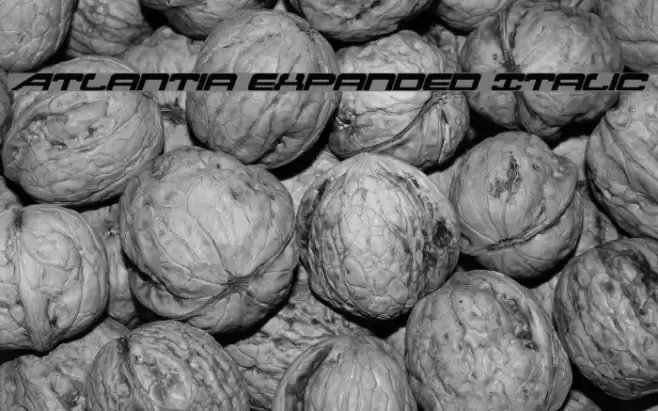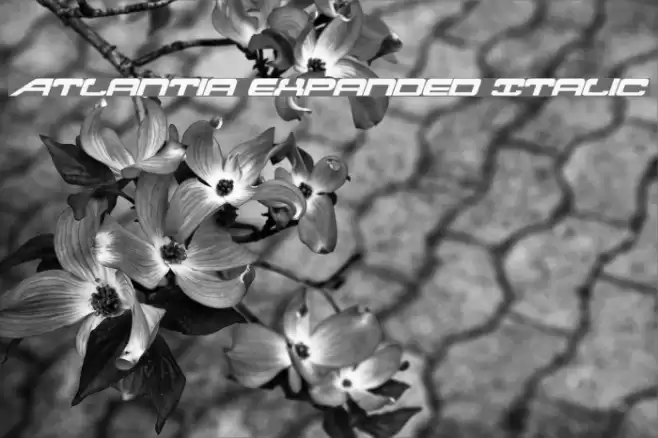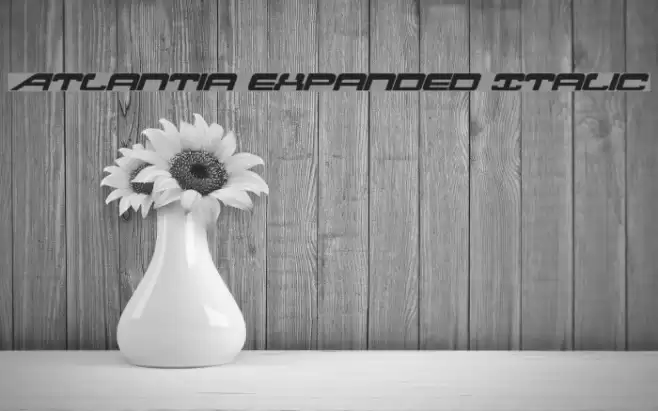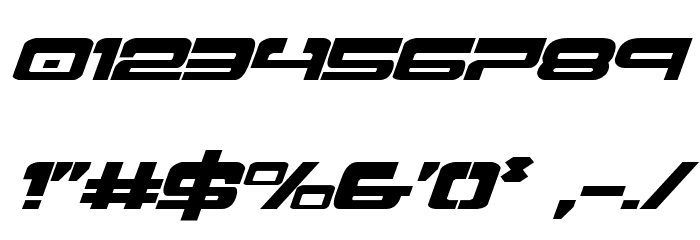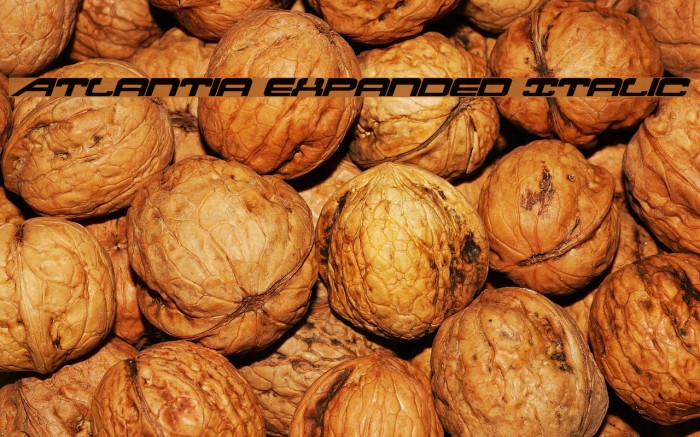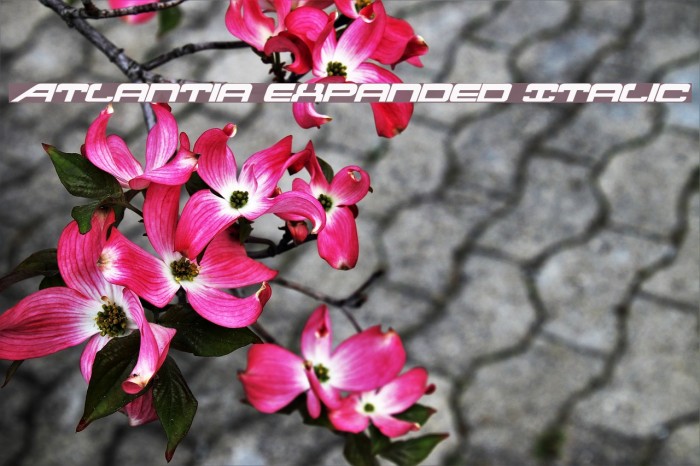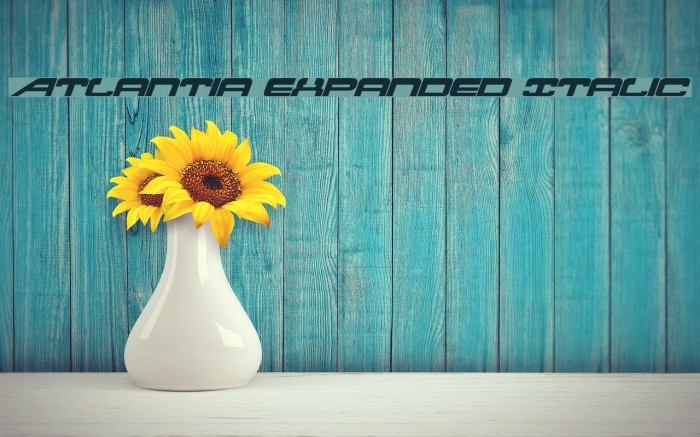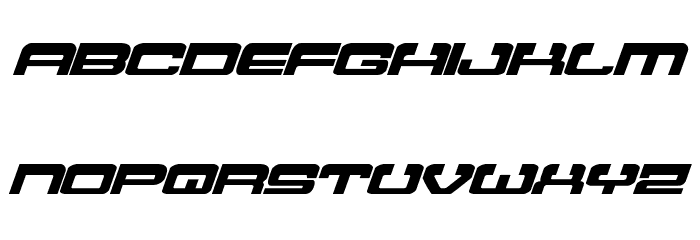
Atlantia Expanded Italic Font
Atlantia Expanded Italic Description
This font features a bold and dynamic design with an italic slant, giving it a sense of motion and energy. The characters are expanded, providing a wide stance that enhances readability while maintaining a futuristic and sleek appearance. The strokes are consistent in weight, contributing to a uniform look across all characters. The font's geometric shapes and sharp angles make it ideal for modern and tech-oriented designs. Its distinctive style is further emphasized by the tight character spacing, which adds to its compact and cohesive visual impact.
A bold, italic, and expanded font with a futuristic and dynamic style from Uncategorized fonts.
- Proposed Projects: Ideal for tech branding, sports team logos, video game titles, and futuristic posters.
- Width: Expanded
- Character Spacing: Tight
- Use Case: Logos, Headlines